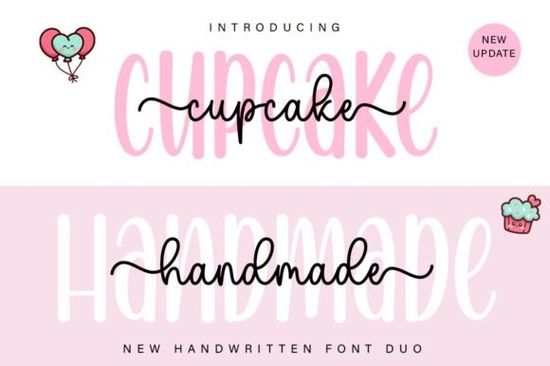
If you have been looking for a way to add a personal touch to your craft projects, Cupcake Handmade Duo Font offers a unique solution for creators who appreciate both structure and elegance. Many designers struggle to find pairings that balance readability with whimsy, especially when working on greeting cards or custom invitations. This typeface combines a clean sans-serif style with a flowing script, giving you two distinct voices in one download.
What makes this option stand out is its versatility. Whether you are labeling homemade jams, creating social media graphics, or designing a wedding suite, having paired fonts saves time on matching weights and styles. Because it includes pre-installed glyphs and ligatures through PUA encoding, you can access special characters easily within most design software without complex substitution settings. You can explore the main collection by visiting the cupcake handmade duo font script fonts page to see how it sits alongside other creative typography assets on the platform.
Why Choose a Duo Font Pair Instead of a Single Type?
A duo font set typically includes a primary text face and a complementary script. This setup removes the guesswork from layout design. When you select a single font, you often spend hours searching for a second typeface that matches the weight and character. With a bundled pair, the designer has already curated the harmony between the letterforms. For instance, using the script portions for headlines while keeping the body text in the sans-serif ensures high contrast without clashing styles.
This balance is crucial for professional-looking print-on-demand items. If you run a small shop selling digital downloads or physical goods, consistency matters. Customers notice when a design feels polished. The Cupcake Handmade Duo allows for this polish without requiring advanced typography skills. You simply apply the font you need for the task at hand and trust the pairing to hold together. Many users find themselves returning to their favorite pairs because the workflow becomes faster and less frustrating over time.
How Does This Font Work for Weddings and Personal Projects?
Wedding invitations are perhaps the most common application for this specific style. The romantic atmosphere of a ceremony often demands a softer aesthetic than bold geometric letters provide. This script font captures that delicate feel while maintaining legibility, which is vital for date and location details. Beyond bridal events, hobbyists use it for party decor, scrapbooking elements, and gift tags attached to baked goods or gifts.
Conversely, not all designs need to be strictly sweet. Some branding requires a stronger statement or a masculine edge depending on the client. In those instances, switching to a bolder typeface like the daddy font script fonts provides a helpful contrast. Even within the same studio or marketplace, testing different personalities helps you decide what resonates best with your audience. Occasionally, seeing a completely different energy, such as the groovy font script fonts, reminds us why versatility is key in digital asset collection.
Technical Details and Compatibility
Before purchasing any digital asset, verifying compatibility with your software is a necessary step. This file includes OpenType features that allow for automatic alternates and swashes. Most graphic design programs recognize these features upon installation, meaning you can toggle between standard letters and decorative flourishes instantly. For users working with vector software like Adobe Illustrator or CorelDraw, this ensures that outlines remain sharp regardless of scaling.
Additionally, the PUA encoding mentioned in the description simplifies access to extended characters. You do not always need specialized input methods to access accented letters or special symbols. Standard keyboard mapping usually suffices, making it easier to integrate the text into documents quickly. This reduces the technical friction often associated with using custom or novelty fonts, allowing you to focus on the visual outcome rather than troubleshooting installation issues.
Is This Right for Commercial Use?
Sellers often worry about licensing restrictions when using third-party assets. Always review the specific license agreement provided by the creator before uploading designs to marketplaces. Generally, duo fonts like this one come with commercial licenses that permit usage in merchandise, templates, and client work. However, you cannot typically resell the font file itself as a standalone product. Being clear about what you can and cannot do protects your business and respects intellectual property rights.
To ensure you are accessing the original and up-to-date version, you should visit the official listing for the Cupcake Handmade Duo Font. This direct link guarantees that you get the highest quality files and supports the designer who created the work.
Practical Tips for Using This Font
- Pairing Advice: Keep the script large for headlines and use the sans-serif for smaller body text to ensure readability.
- Kerning Check: Always adjust spacing manually if the automated kerning creates gaps that look uneven on thin lines.
- Ligature Testing: Turn off ligatures temporarily if specific letter combinations create unwanted shapes.
- Color Contrast: Use darker colors for the script on light backgrounds to prevent the delicate strokes from disappearing.